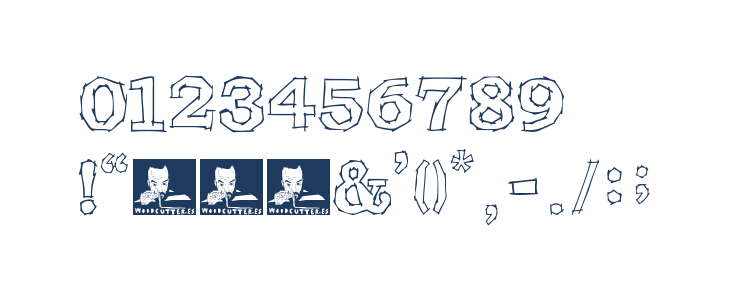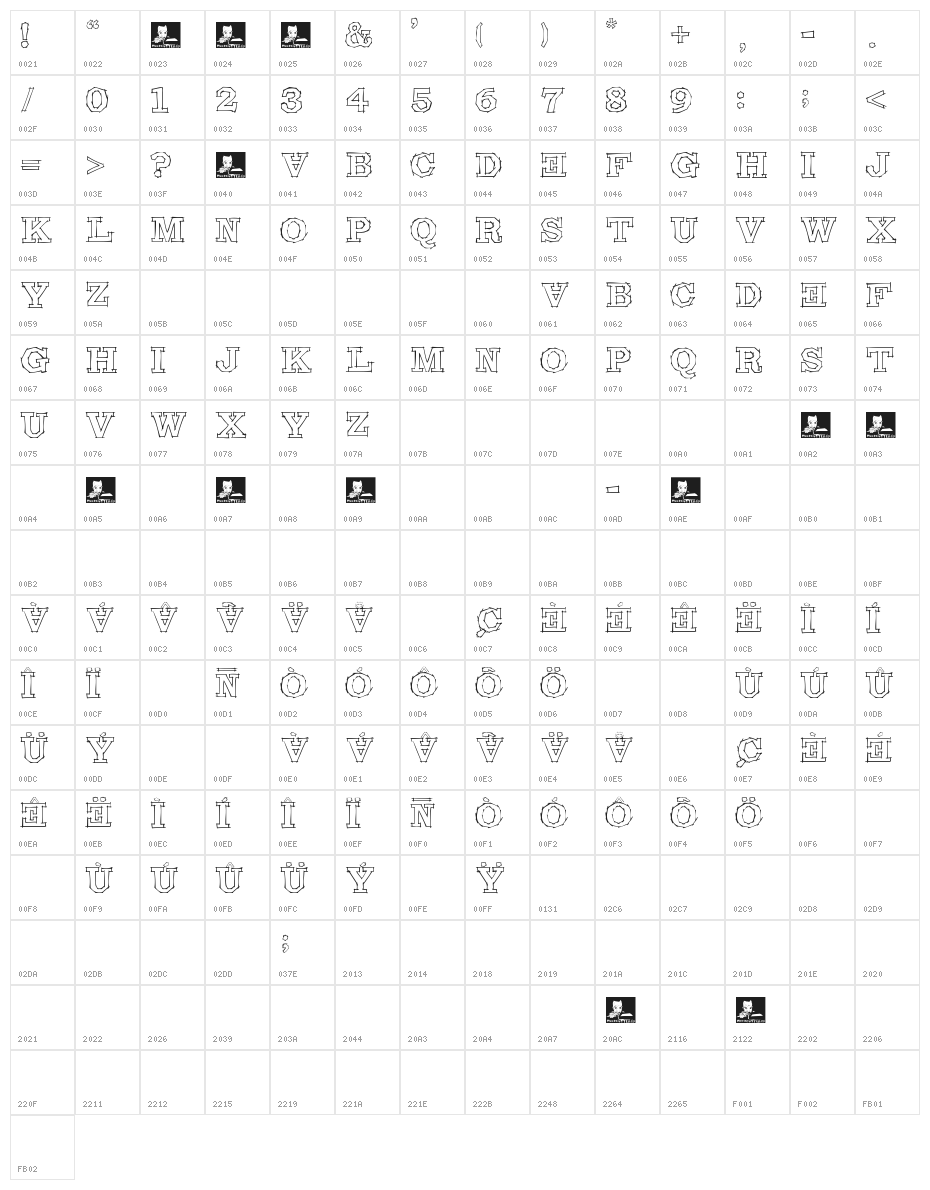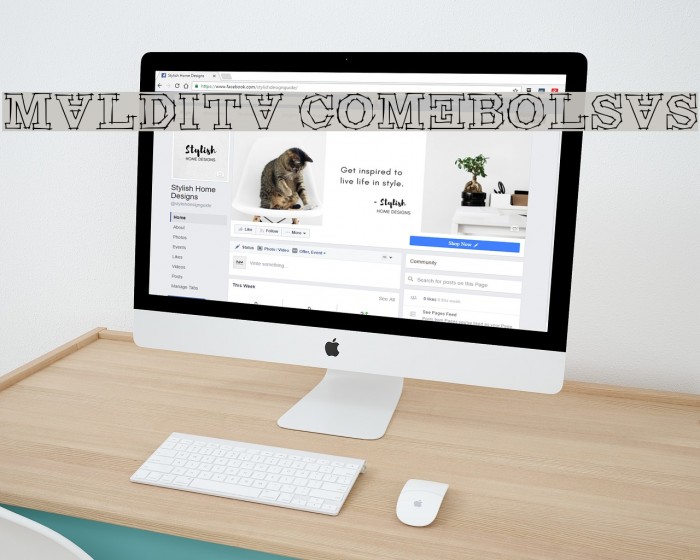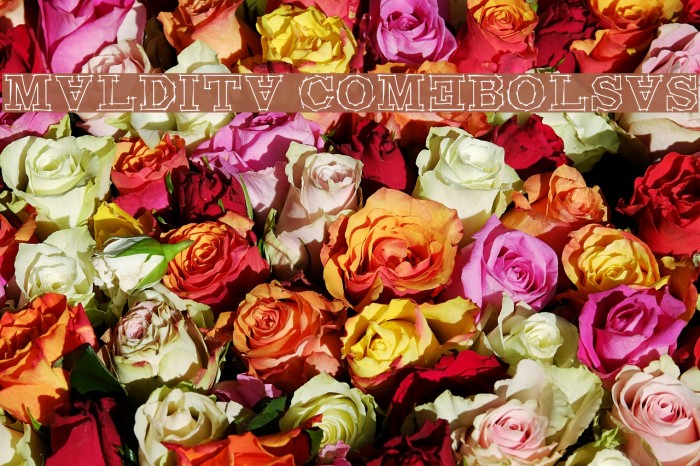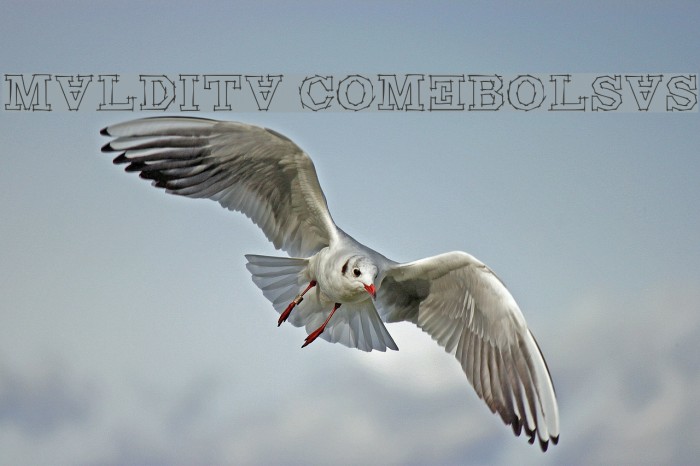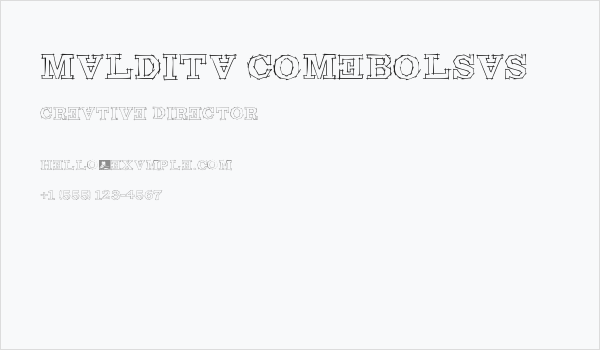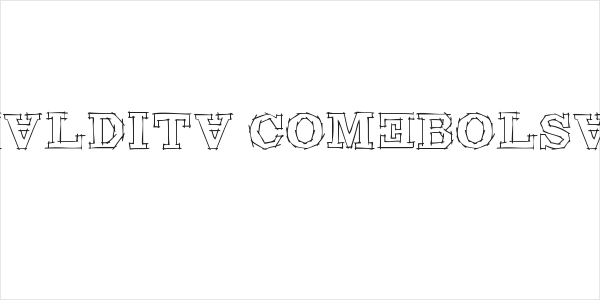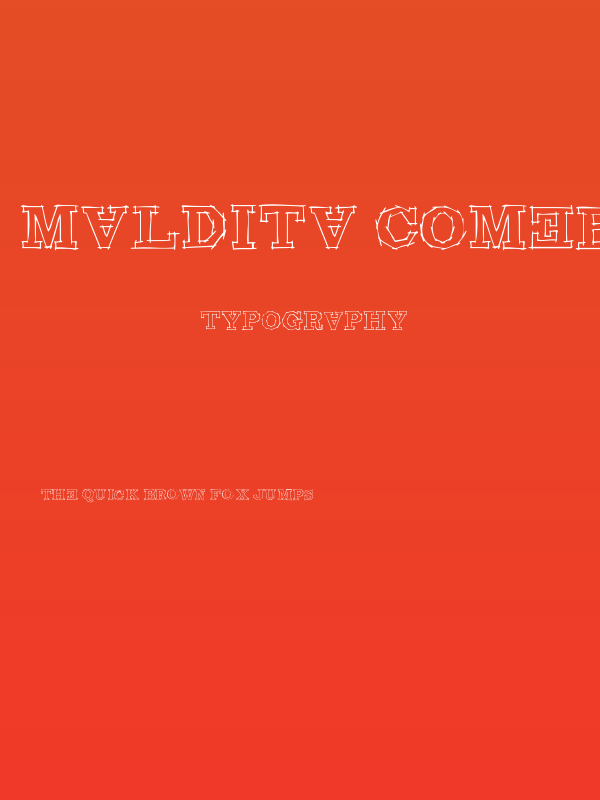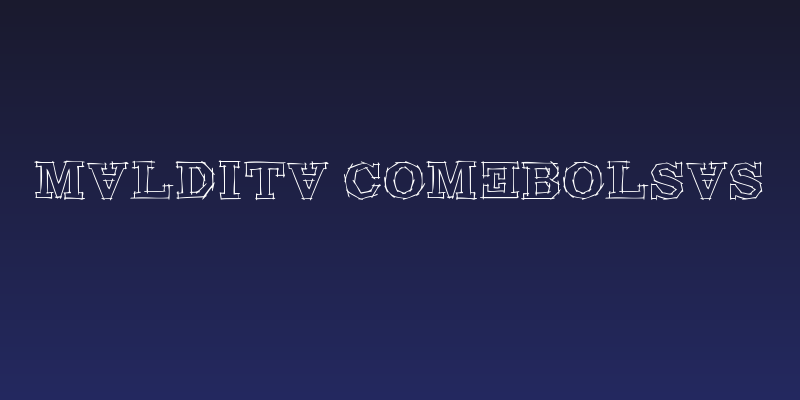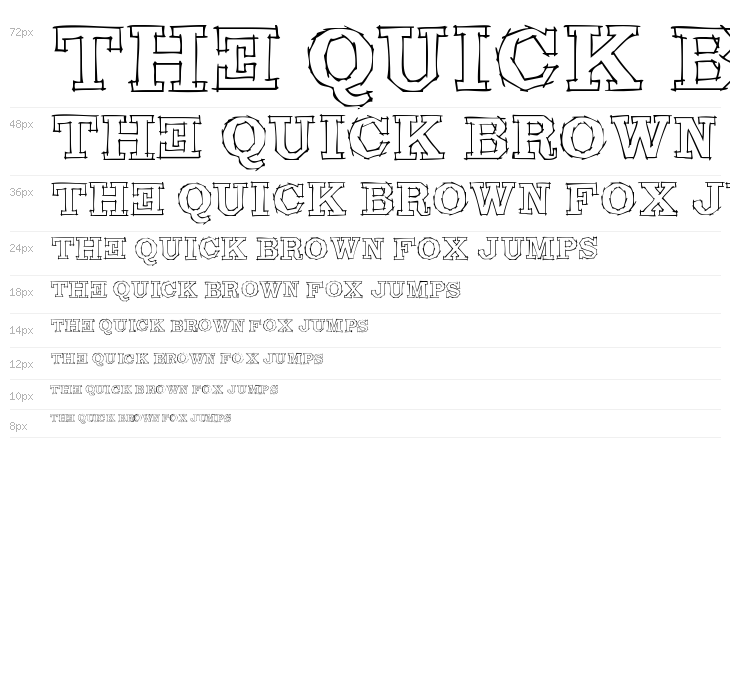
Maldita Comebolsas Font
Maldita Comebolsas Description
This font features a bold and edgy design with a rough, hand-drawn appearance. The characters are outlined with irregular, jagged edges, giving it a rebellious and dynamic feel. The uppercase and lowercase letters maintain a consistent style, with a playful yet aggressive aesthetic. The numbers and special characters follow the same design principles, ensuring a cohesive look across all glyphs. This font's unique style makes it stand out, perfect for projects that require a strong visual impact.
| Proposed Projects | Ideal for posters, album covers, streetwear branding, and edgy graphic designs. |